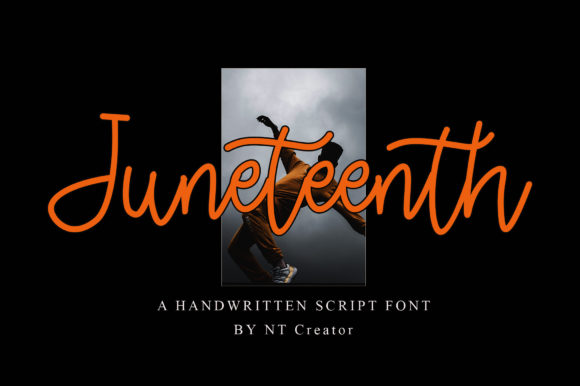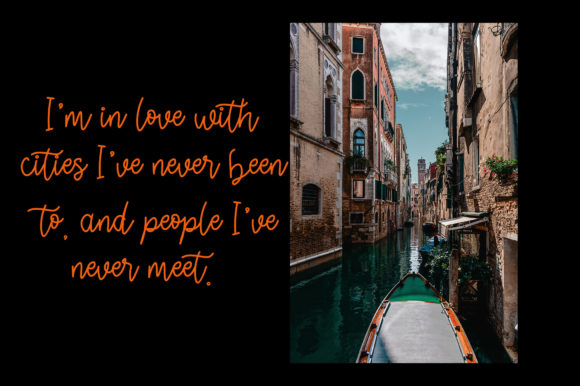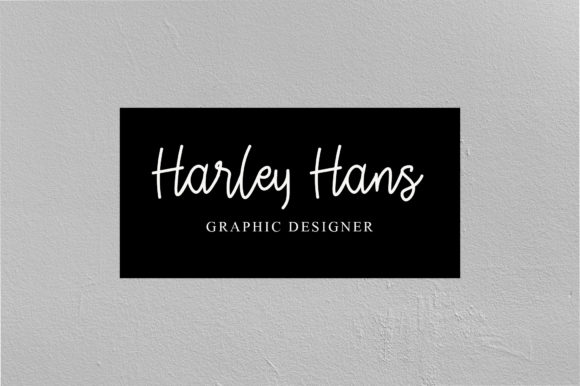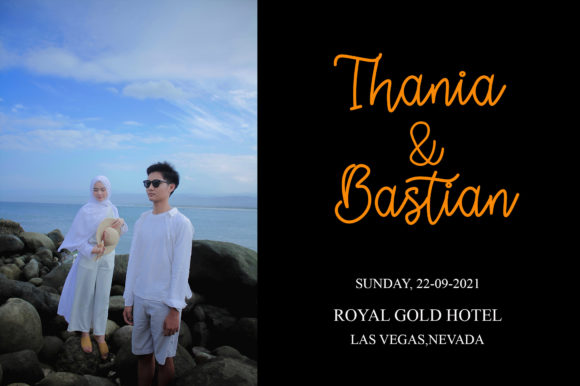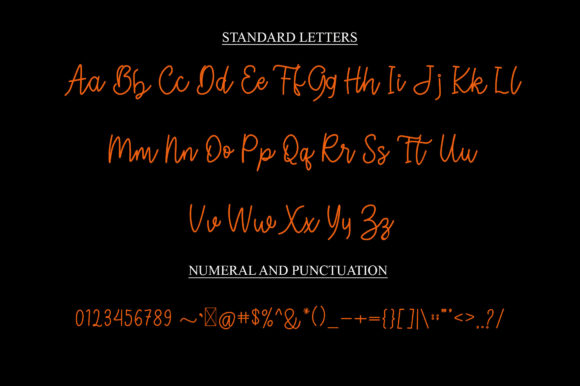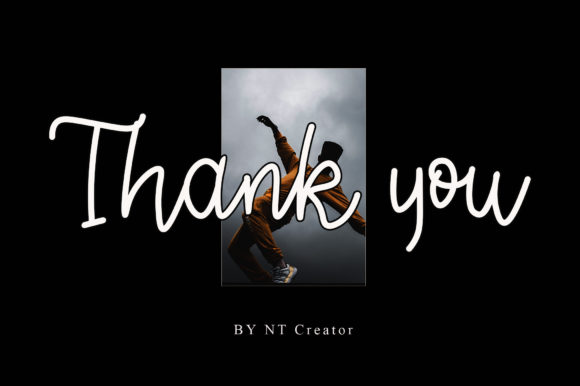
Introduction to Juneteenth Font
Juneteenth is a stylish and delicate script font.
It has a clean, thin and smooth vibe and it will be a hit for any design that you want to add it to .
Key Features of Juneteenth Font
Why Choose Juneteenth Font?